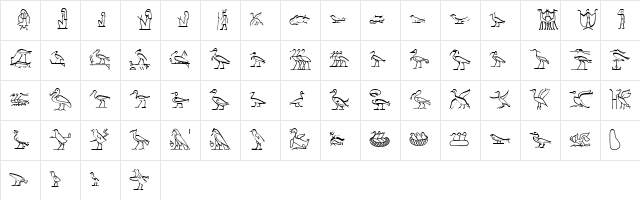
Hyroglyphes Two Normal Free Font
Hyroglyphes Two Normal
Design Context for Hyroglyphes Two
Hyroglyphes Two is a composed and adaptable typeface that performs quietly and consistently across a wide range of design contexts.